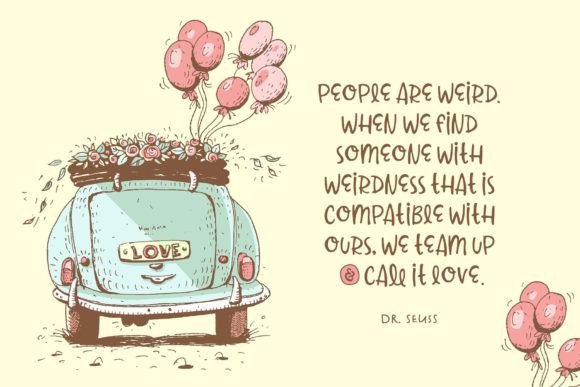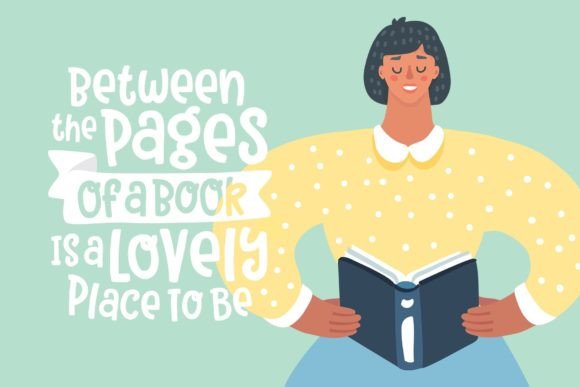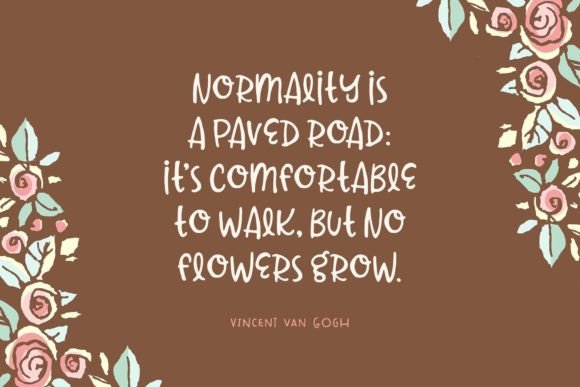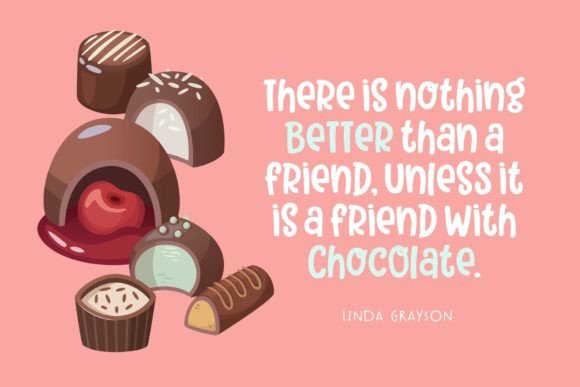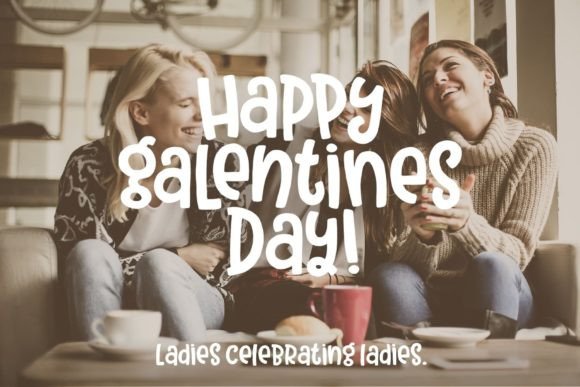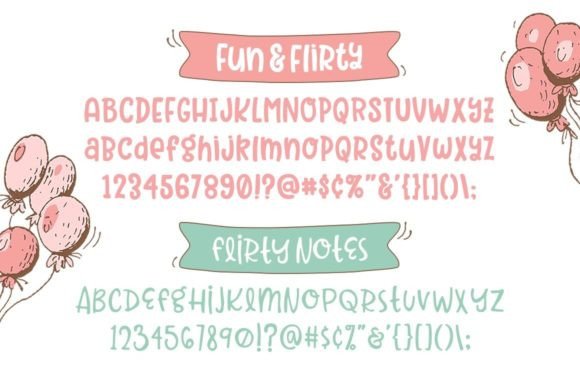
Introducing Flirty Font: The Sweetest Handwritten Font for Your Creative Projects
Are you tired of using the same old fonts in your designs? Do you want to add a touch of sweetness and playfulness to your projects? Look no further than Flirty Font, a beautiful handwritten font that is sure to capture your audience’s attention. In this article, we’ll dive into the world of Flirty Font, exploring its unique features, uses, and benefits for designers and crafters.
What is Flirty Font?
Flirty Font is a sweet handwritten font that comes in two distinct styles, each with its own unique charm. The first style features thick lines and an adorable feel, perfect for creating eye-catching headlines and titles. The second style boasts a unique, all-caps hand-drawn feel that’s ideal for adding a touch of sophistication to your designs.
One of the best things about Flirty Font is its versatility. You can use the two styles separately or together, and the results are always stunning. Imagine pairing the bold, playful style with the elegant all-caps style to create a truly show-stopping design. The possibilities are endless, and we’re excited to see what you’ll create with Flirty Font.
Key Features of Flirty Font
- Two Unique Styles: Flirty Font comes in two distinct styles, each with its own character and charm.
- Handwritten Feel: Flirty Font has a beautiful handwritten feel that’s perfect for creating personal and engaging designs.
- Versatile: Use the two styles separately or together to create a wide range of designs.
Uses for Flirty Font
Flirty Font is perfect for a wide range of creative projects, including:
- Branding and Packaging: Add a touch of sweetness and playfulness to your brand with Flirty Font.
- Invitations and Stationery: Create beautiful invitations, greeting cards, and stationery with Flirty Font.
- Social Media Graphics: Use Flirty Font to create eye-catching social media graphics that will capture your audience’s attention.
- Crafting and Scrapbooking: Add a personal touch to your crafting and scrapbooking projects with Flirty Font.
Benefits of Using Flirty Font
So why choose Flirty Font for your next project? Here are just a few benefits of using this beautiful font:
- Adds a Personal Touch: Flirty Font has a beautiful handwritten feel that adds a personal touch to your designs.
- Increases Engagement: The playful and sweet nature of Flirty Font is sure to capture your audience’s attention and increase engagement.
- Versatile: Flirty Font can be used in a wide range of creative projects, making it a great addition to your font library.
| Font Name | Flirty Font |
| Author | Denise Chandler |
In conclusion, Flirty Font is a beautiful handwritten font that’s perfect for designers and crafters looking to add a touch of sweetness and playfulness to their projects. With its two unique styles, versatility, and ease of use, Flirty Font is sure to become a favorite in your font library. So why wait? Download Flirty Font today and start creating stunning designs that will capture your audience’s attention.
Whether you’re a seasoned designer or a crafter just starting out, Flirty Font is the perfect addition to your creative toolkit. So go ahead, get creative, and show the world what you can do with Flirty Font!